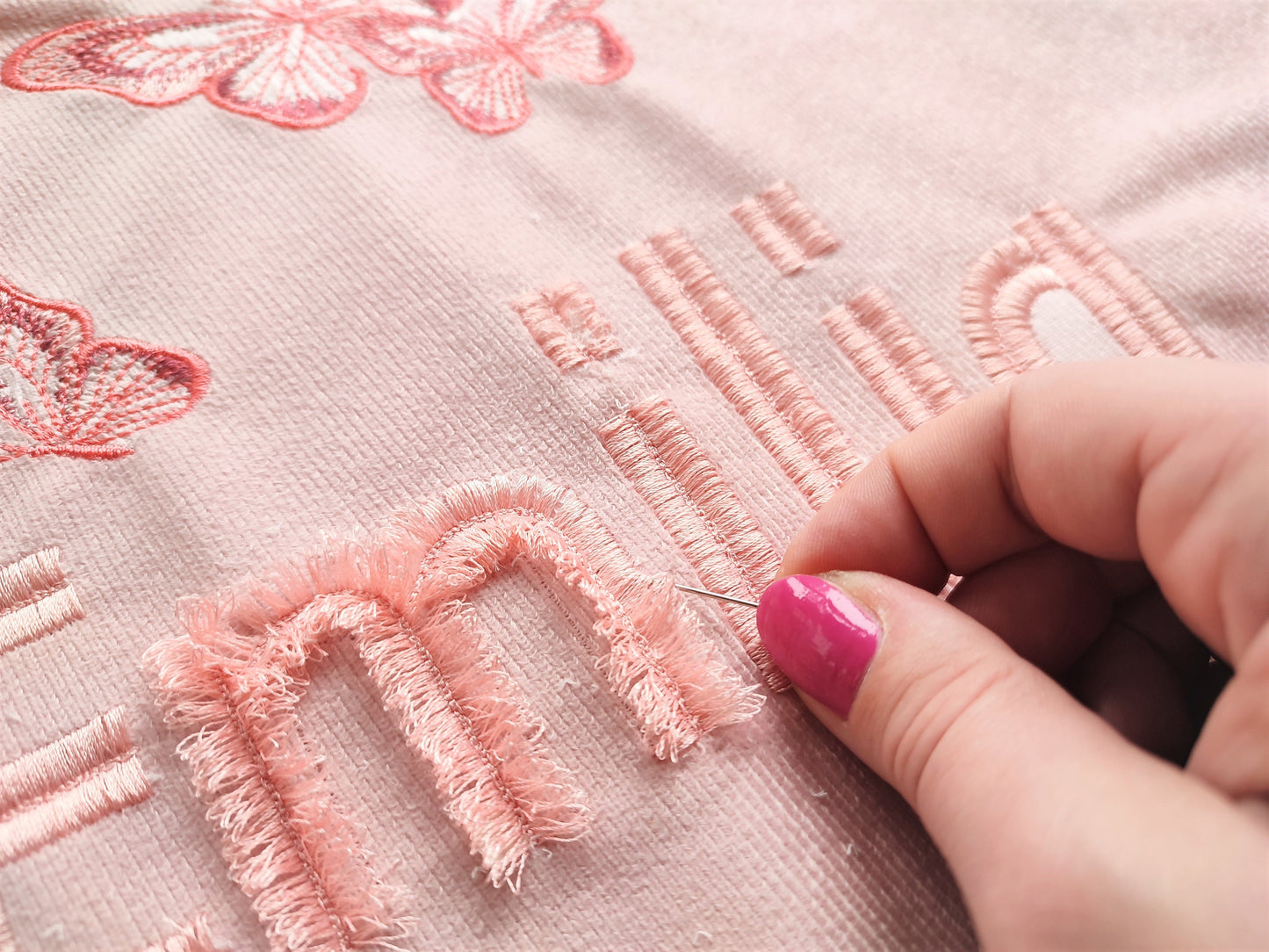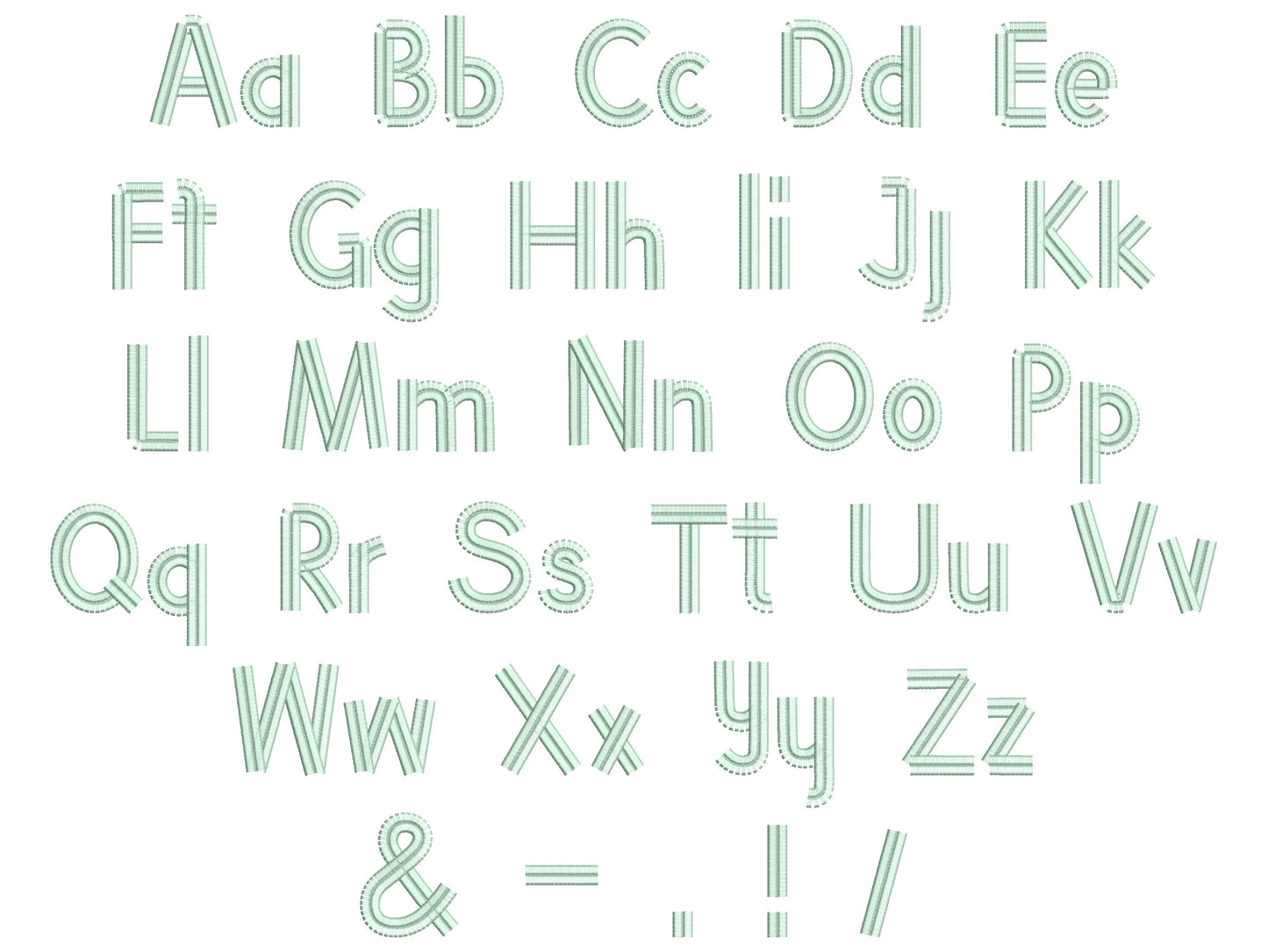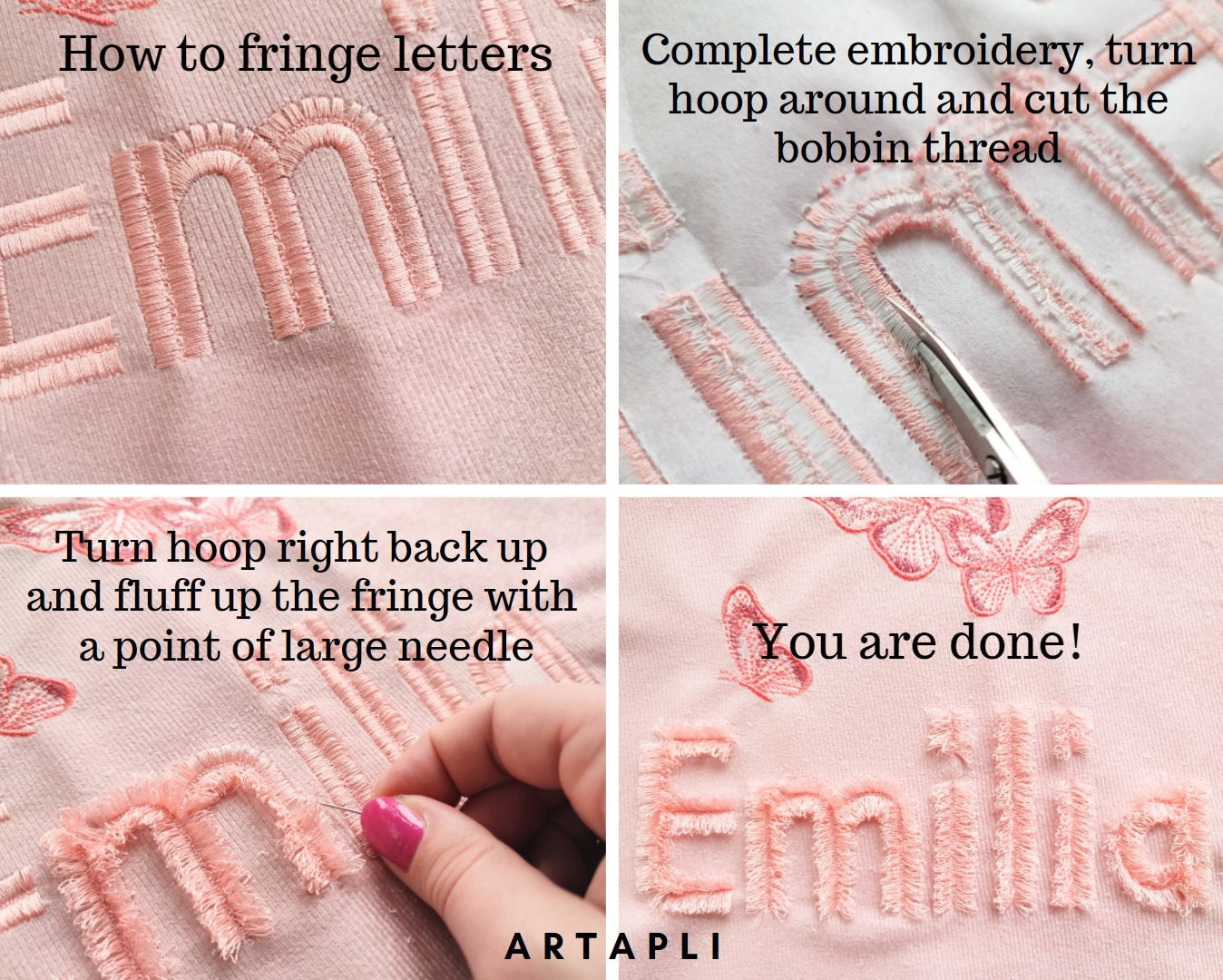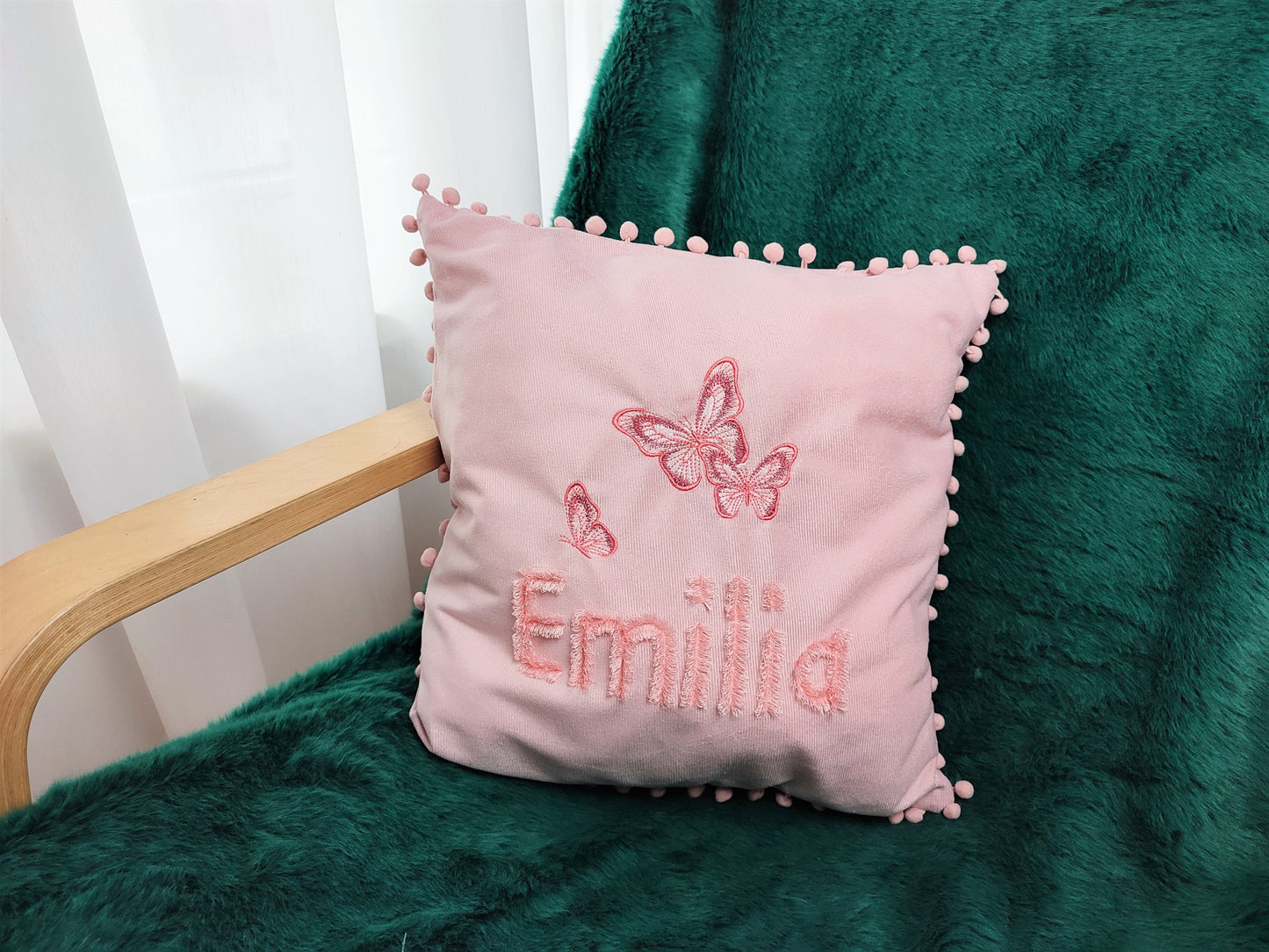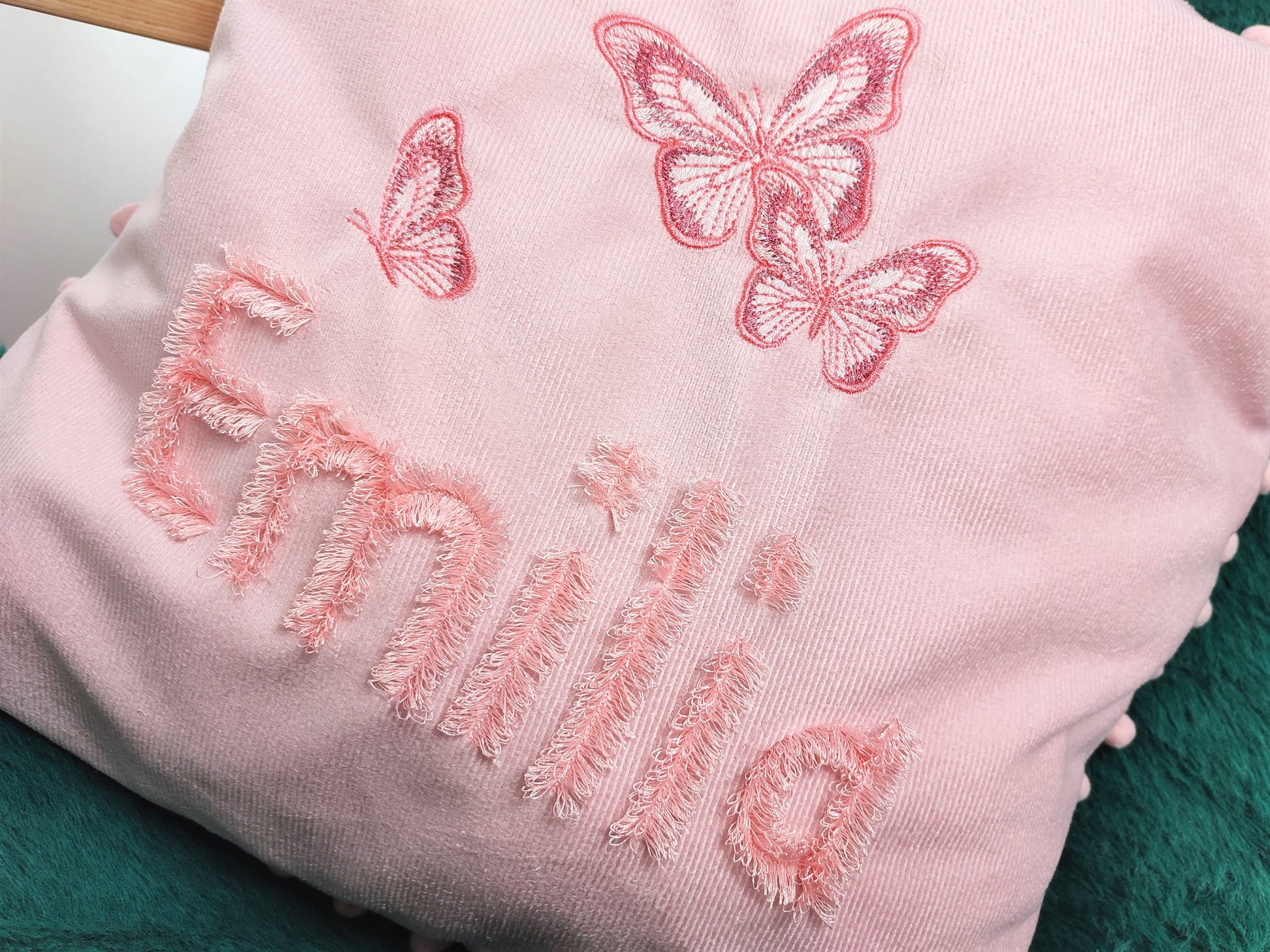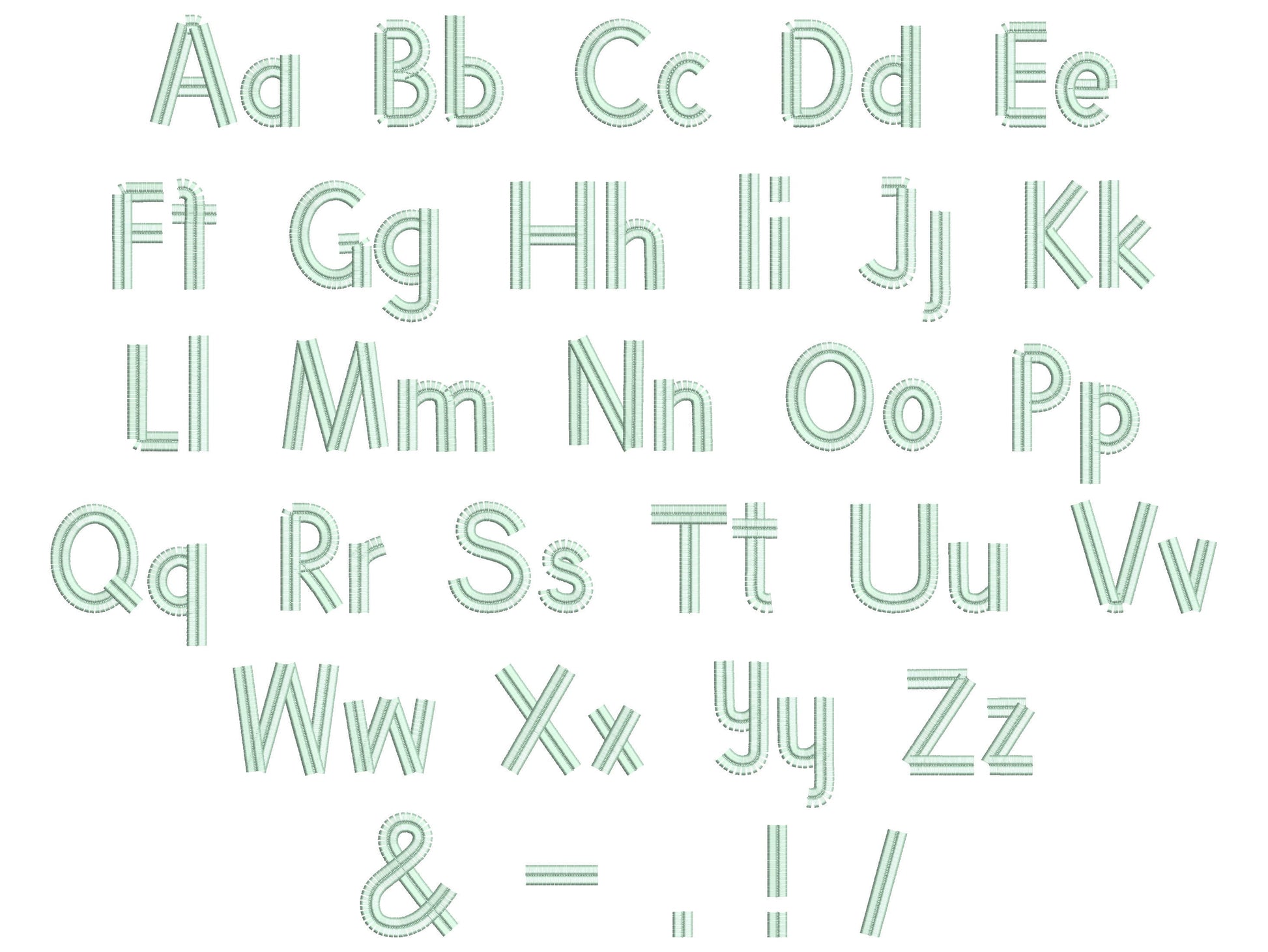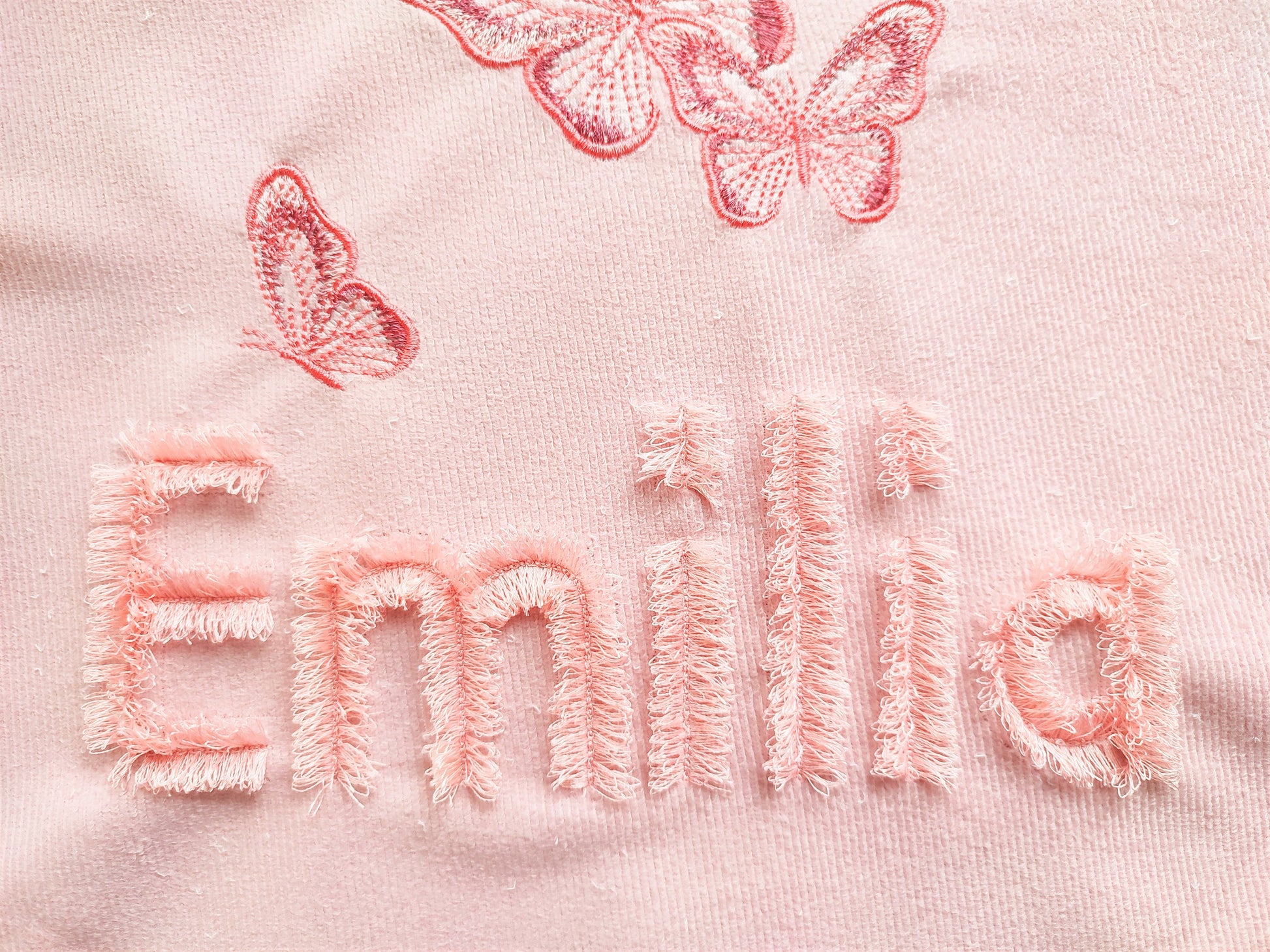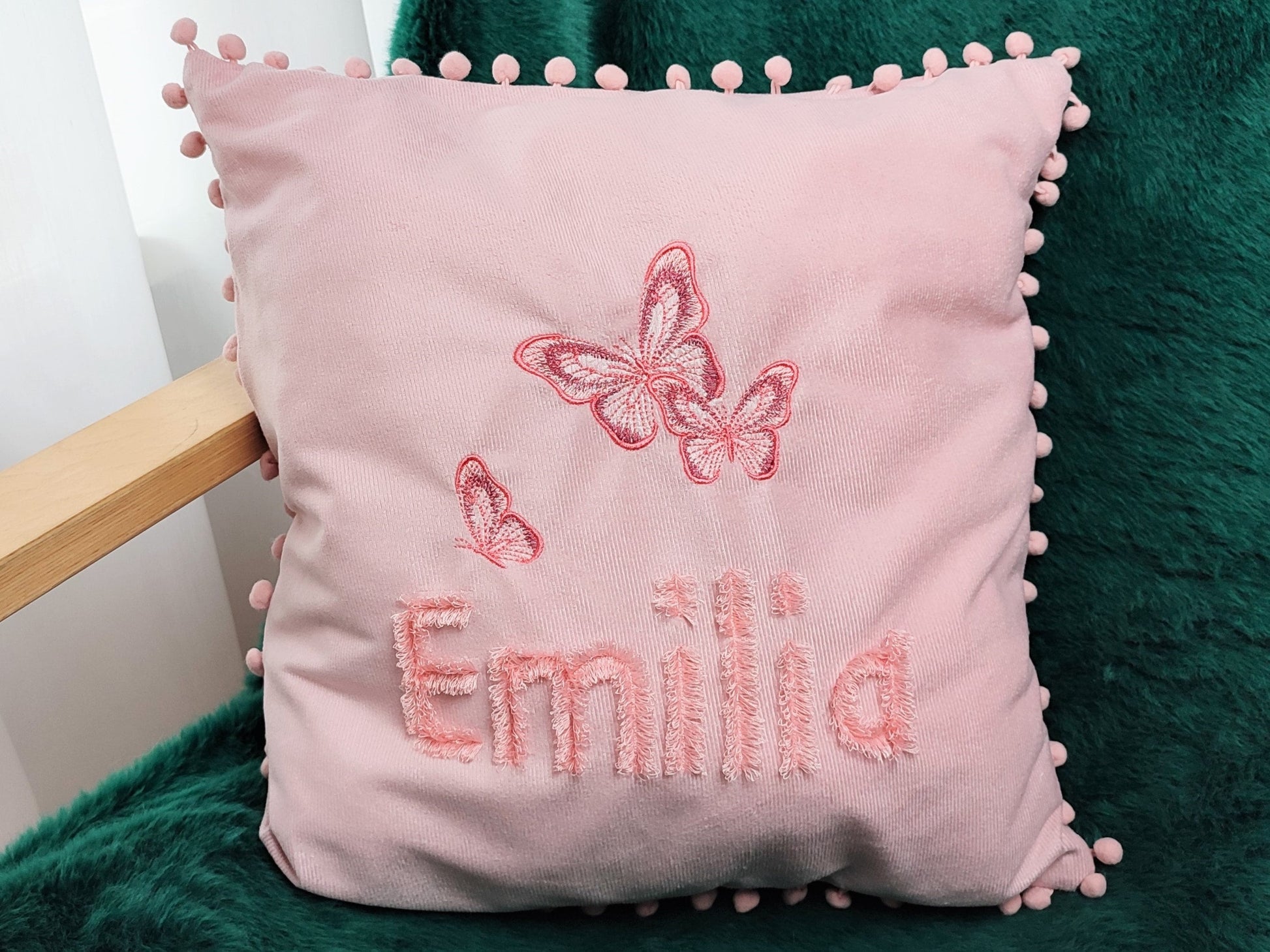
Love all of the sizes! I made myself a knitting sweatshirt and a fluffy dandelion sweatshirt too they are beautiful! I can’t wait to make some other items!
Enjoyed. Stitched nicely.
It stitched out really well
I love this and will continue to stich it on all of my items.
Bought it... embroidered it...Loved it!!!!! Thank you for beautiful stitching and good quality designs
Perfect item, loved it made up
Lovely font embroidered good. have yet to cut the fringe
Was thinking that it would be fluffier but it was still good.
Really cute embroidery file and stitched out perfectly. Thanks!
wel leuk maar het ziet er niet mooi uit als het geborduurd is je hebt er niks aan.
I had no problems at all with this purchase. I love the font and will use it a lot.
Ganz schöne Idee mit den Fransen. Leider hat das V nicht 100% gut funktioniert. Werde das Alphabet aber sicher noch öfter sticken 🥰
Stitched out perfectly. Pretty awesome
This stitches out so nicely!! Make sure to use a widely different bobbin color to make stitch ripping an ease!! I used my embroidery scissors to pull the fringe out instead of a needle. The thinner the fabric, the higher the difficulty pulling the fringe out believe it or not.
STITCHED OUT TODAY CAME OUT SOOOO CUTE
TURNED OUT GREAT! CUSTOMER LOVED IT!
This was PERFECT! I ran it as the larger size and it was easy to cut and fray. I used it as a 2 inch and file and learned (4 stitches later) that my scissors are not made for this. *Note the listing says use a needle.. It's my fault, not the seller (lol). Very cool and easy to use design!
Font looks wonderful! Would highly recommend.
Good product, stitched out nicely
Great product, sewed out good.
Unsre Schrift auf der Schultüte da eine Kuschelschrift gewünscht wurde . Tolle Stickdatei .
Looks lovely and much easier than I expected!
Great font in 4 sizes. Stitches beautifully. Takes a little time to get the spacing perfect but worth it for the product outcome.
Datei lässt sich gut mit einem schönen Ergebnis sticken.
Stitched out beautifully on my single needle machine and what an incredible finish! Lovely addition to my collection.
Perfect font and works great.
I tried the seam ripper first to cut the bobbin thread , but then I had a brainwave, to use my Peggy Stitch Eraser to run through them. What a difference. The font is great
The font Stitches out beautifully.